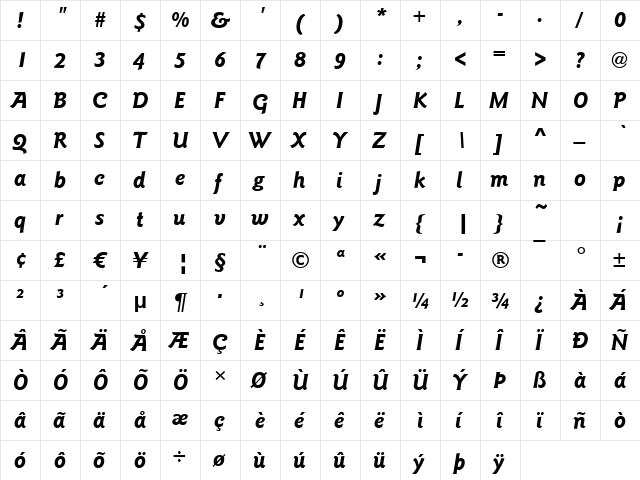
Goudy-Elegant BoldItalic Font Preview
Design Context for Goudy-Elegant Typeface
Goudy-Elegant offers clean, dependable letterforms without strong stylistic allegiance, making it a practical choice for designers who need flexibility. The slanted form adds forward momentum and visual energy. The heavy weight commands attention and anchors typographic hierarchies.